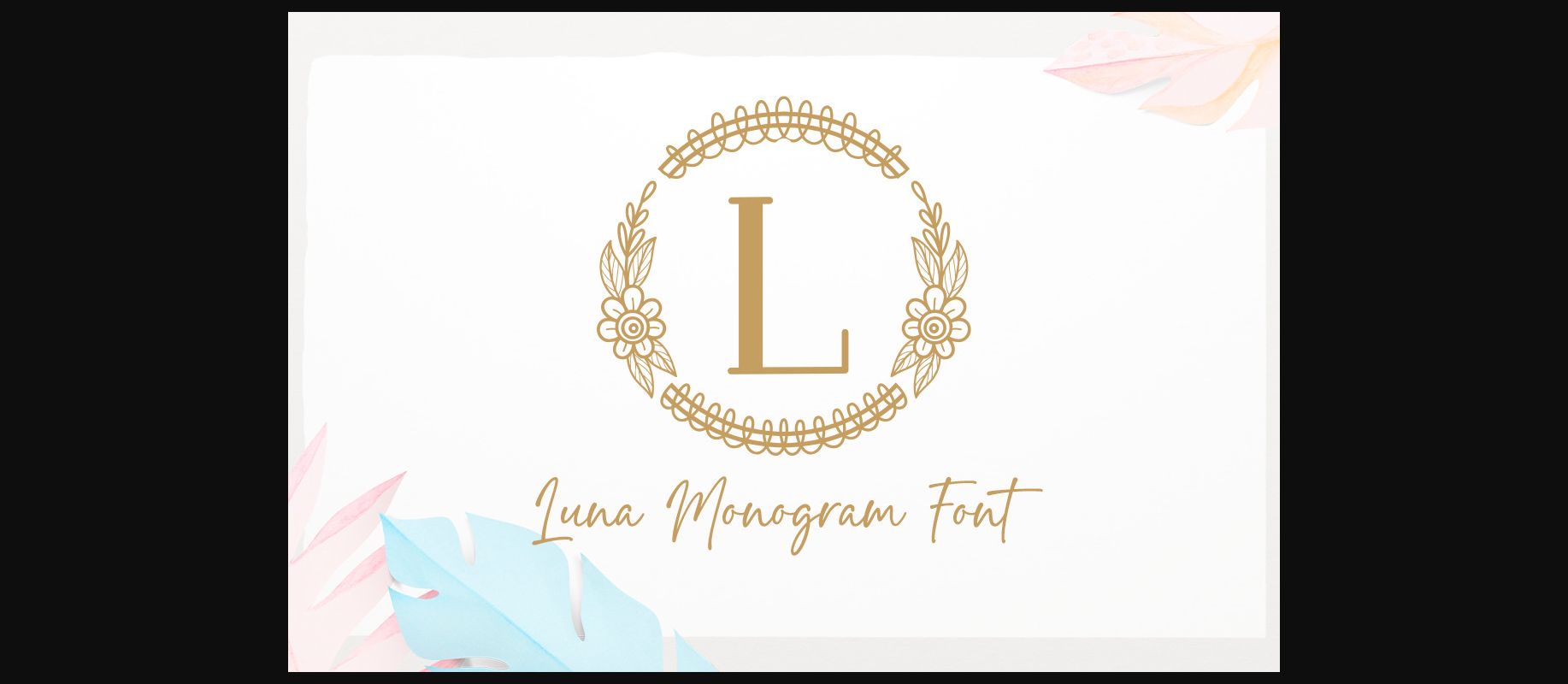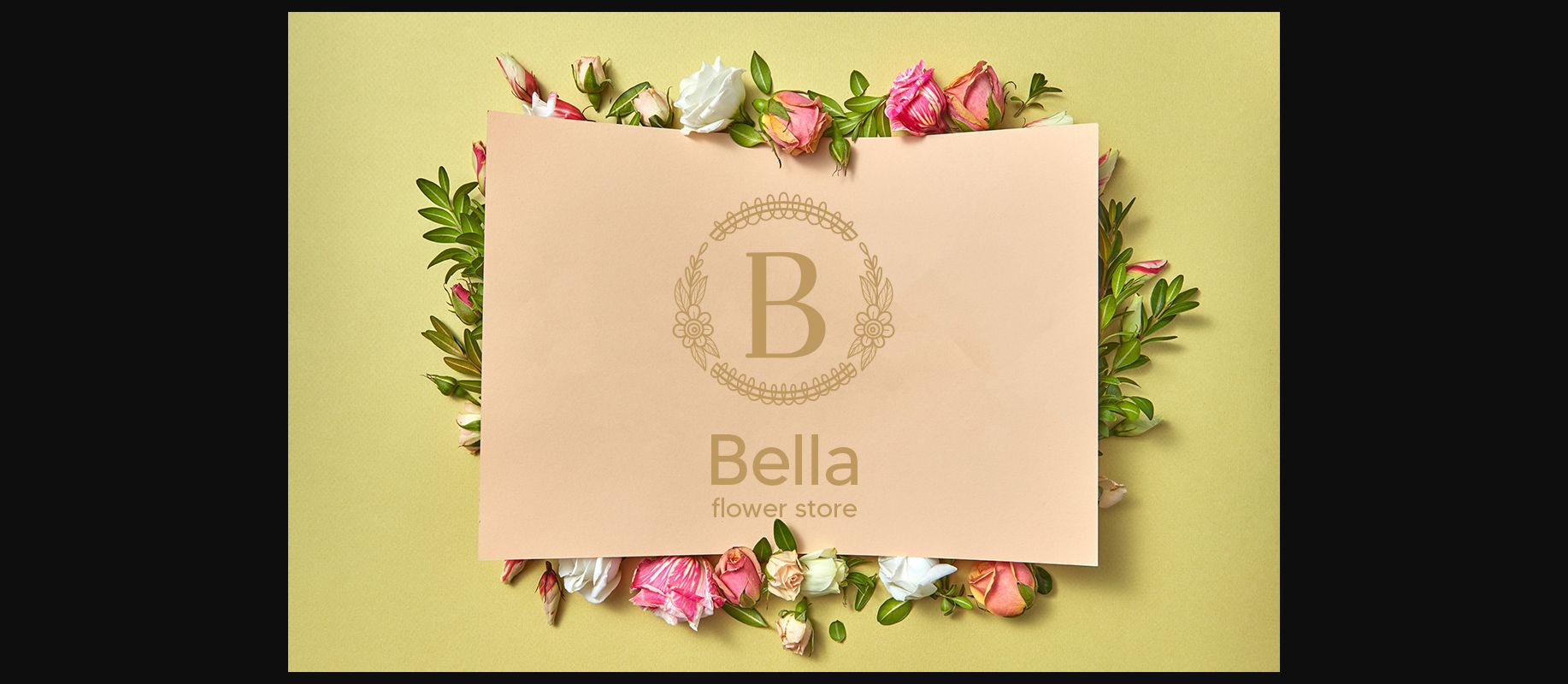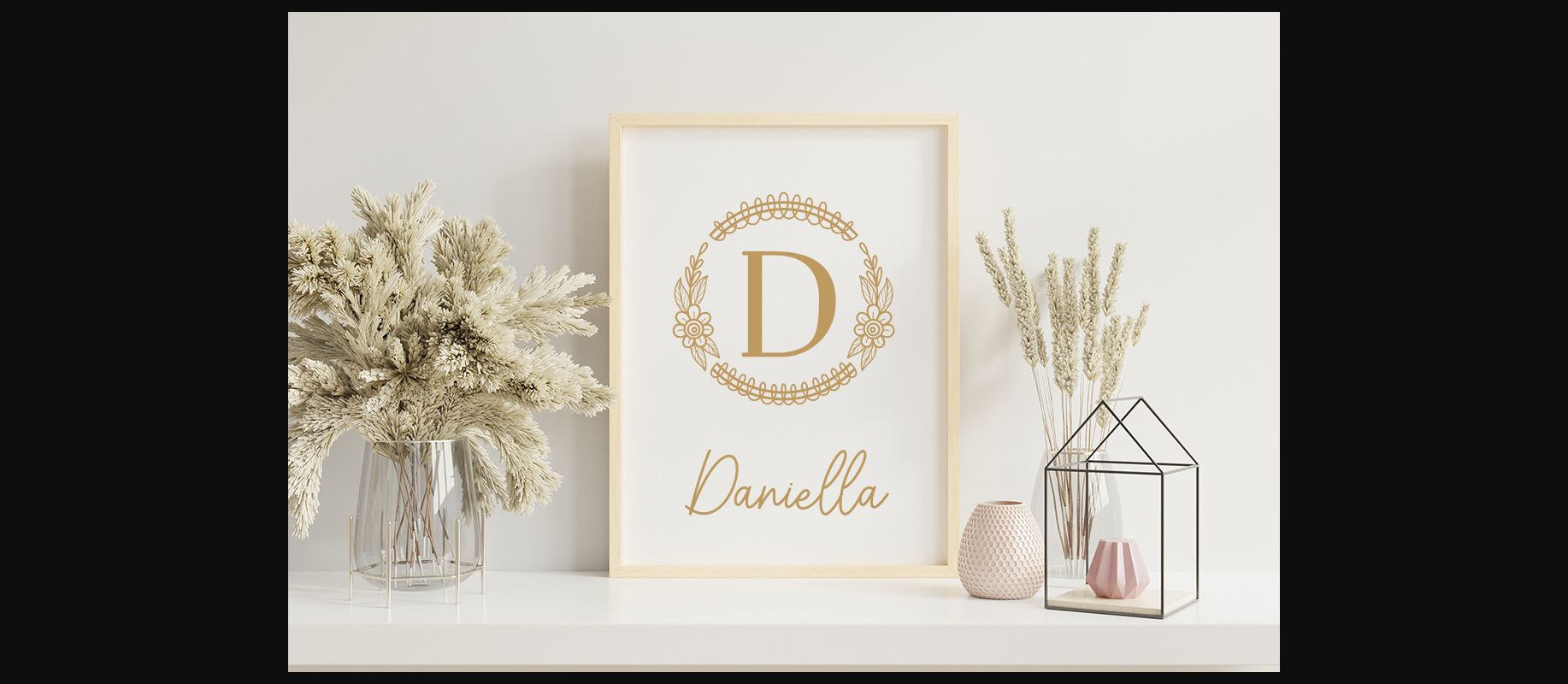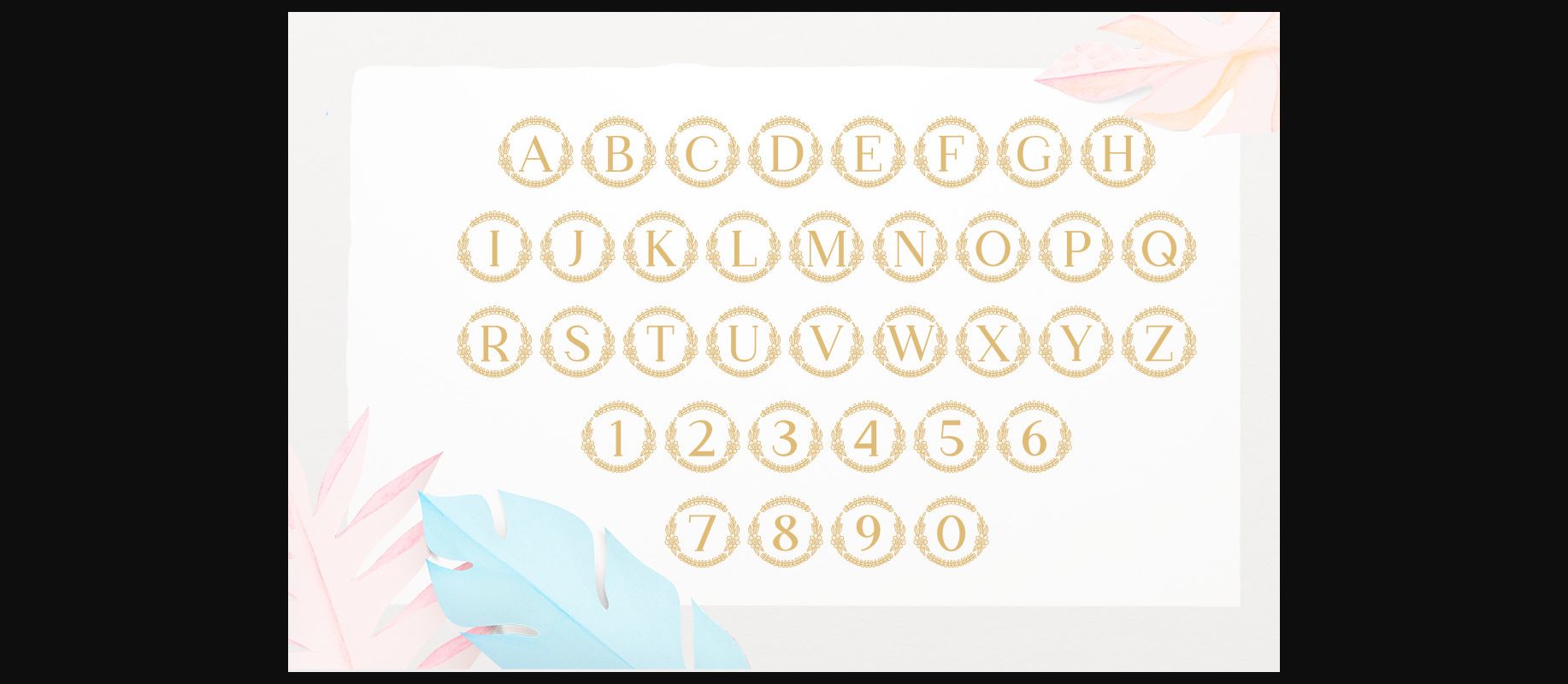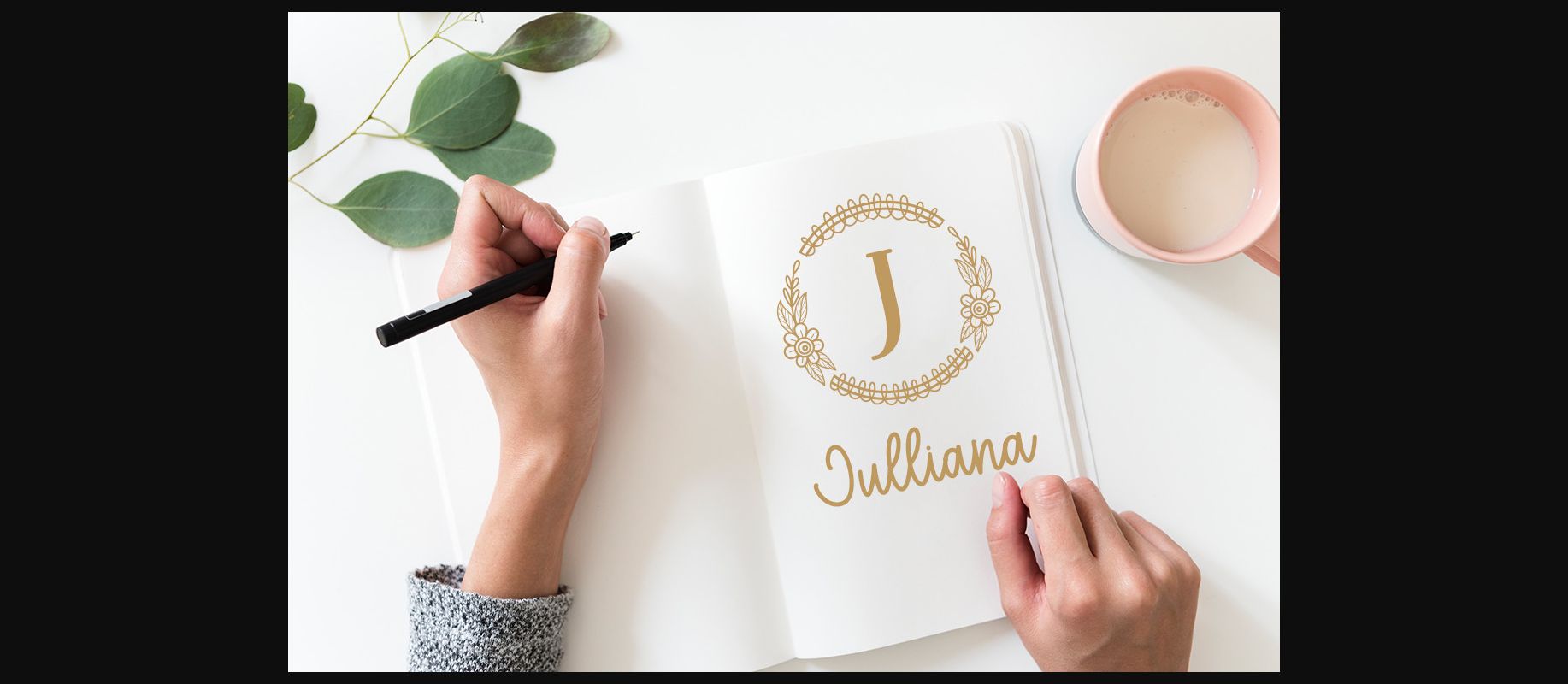
About Luna Monogram Font
Luna Monogram is a delicate and charming decorative font, that is easy to remember.
Use it for a wide range of design occasions such as logos, apparel, photography, watermarks, quotes, blog headers, posters, weddings, invitations, stationery, branding, and much more.